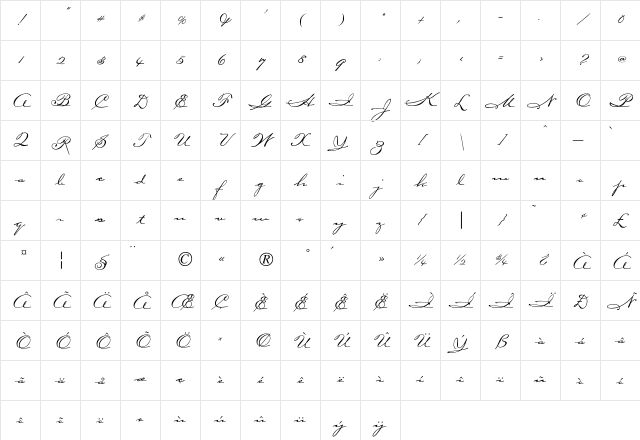
Hemingway Regular Free Font
Hemingway Regular
Design Context for Hemingway
Hemingway is a composed and adaptable typeface that performs quietly and consistently across a wide range of design contexts.